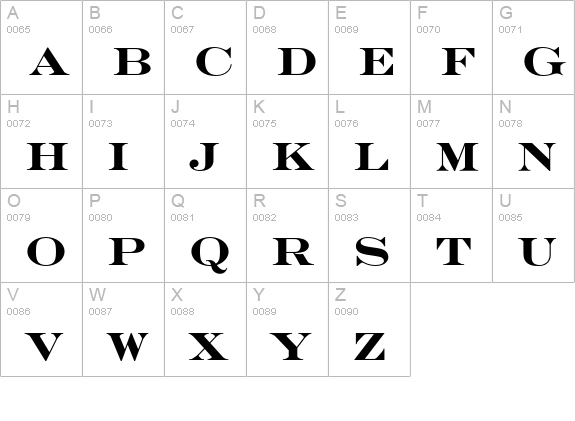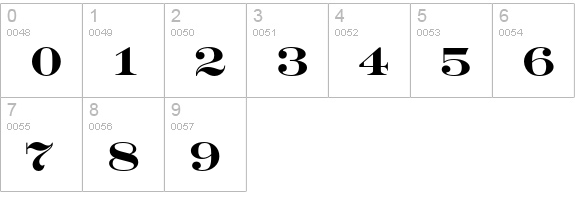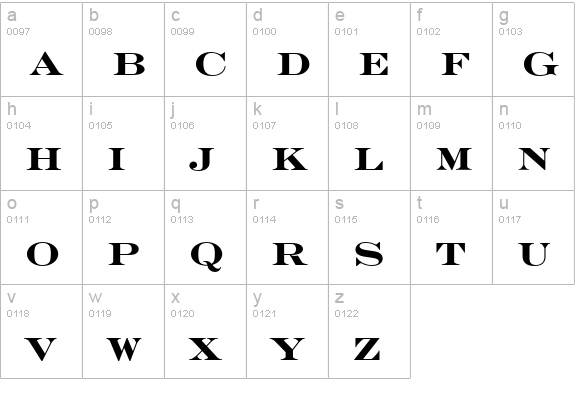
EngraversEF-Bold is a strong, high-contrast variant in the EngraversEF typeface family \xE2\x80\x94 well suited to headlines, attention-grabbing titles, and strong calls-to-action.
EngraversEF-Bold font is a bold and striking typeface that exudes elegance and sophistication. Its clean lines and sharp edges make it perfect for creating eye-catching designs with a touch of modernity. Whether you are working on a logo, a poster, or any other project that requires a strong and impactful font, EngraversEF-Bold is sure to make a statement. The best part? EngraversEF-Bold is available for free download at FontsMarket.com, where you can easily access this versatile font and incorporate it into your creative projects without any cost. With its timeless appeal and versatility, EngraversEF-Bold is a must-have font for designers looking to add a touch of class to their work. Download it now and elevate your designs with this premium font for free.